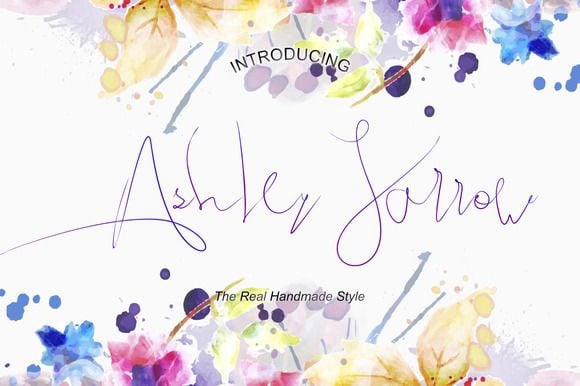
ashley jarrow
Discover the Stylish Ashley Jarrow Font
Ashley Jarrow, created by renowned designer Alex Smith in 2022, embodies a chic and contemporary aesthetic tailored for modern design needs. This font is ideally suited for a range of applications including web design, branding, and print media. With its sleek lines and stylish curves, Ashley Jarrow elevates any creative project.
Features and Formats of Ashley Jarrow Font
The Inspiration Behind Ashley Jarrow Font
Drawing inspiration from contemporary typography trends, Ashley Jarrow was designed to create a bold and modern aesthetic. Alex Smith’s attention to detail ensures that each character remains distinct, making it a go-to choice for those seeking a unique typographic solution.
Ideal Uses for Ashley Jarrow Font
Ashley Jarrow excels in various contexts, from creating impactful branding and marketing materials to designing eye-catching web layouts. Its versatility and style make it perfect for logos, invitations, and any project that demands a contemporary touch.